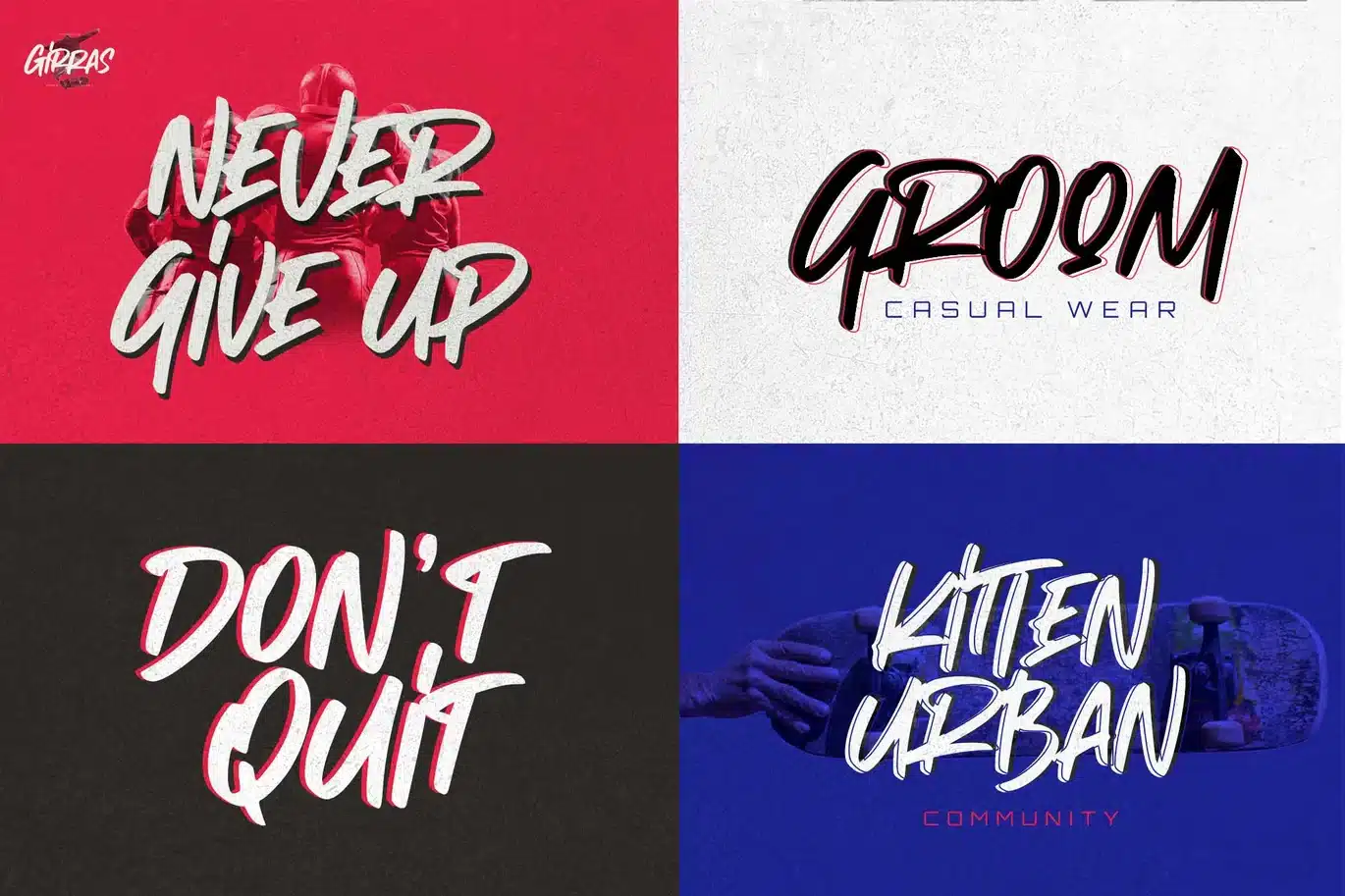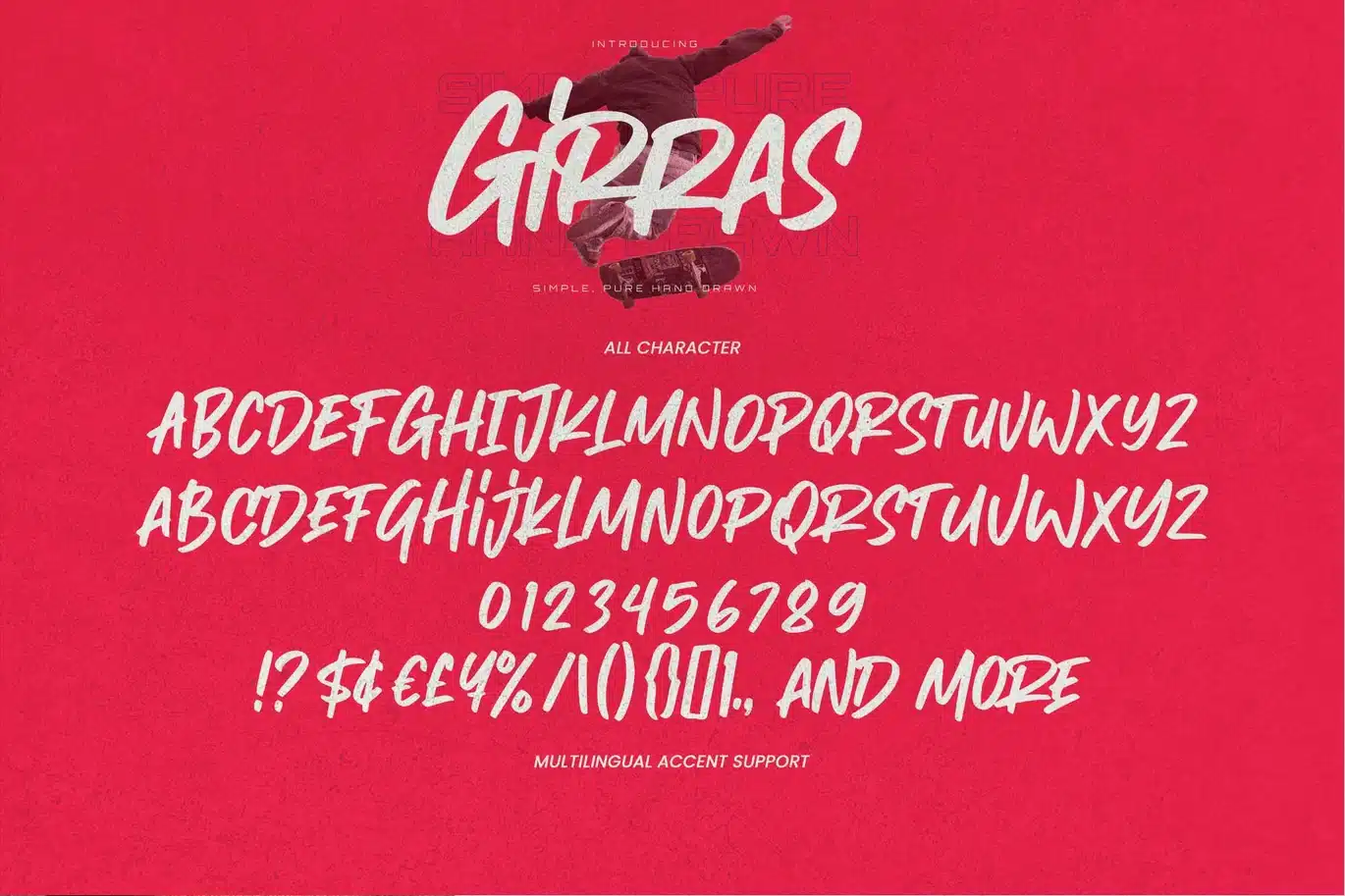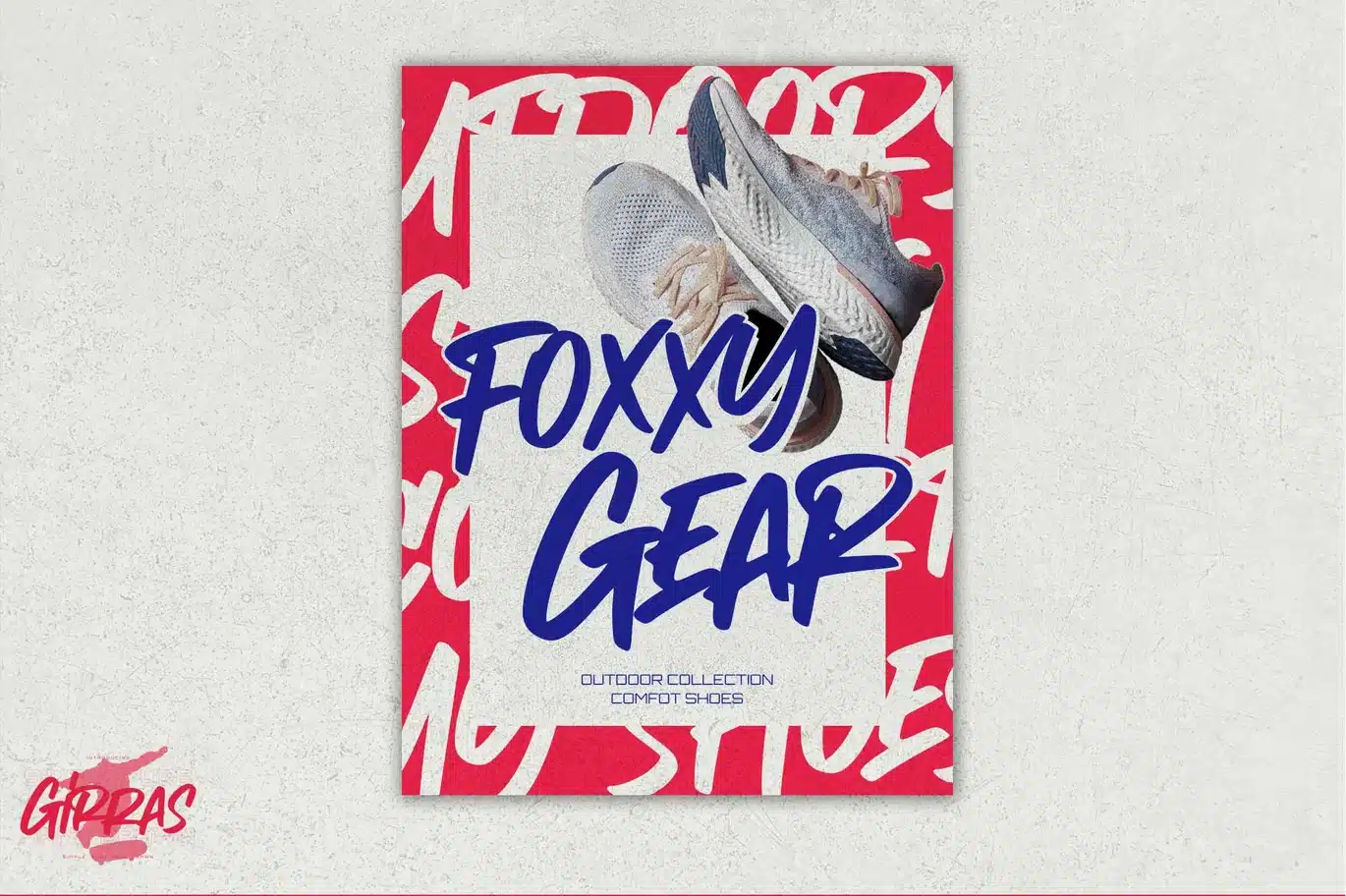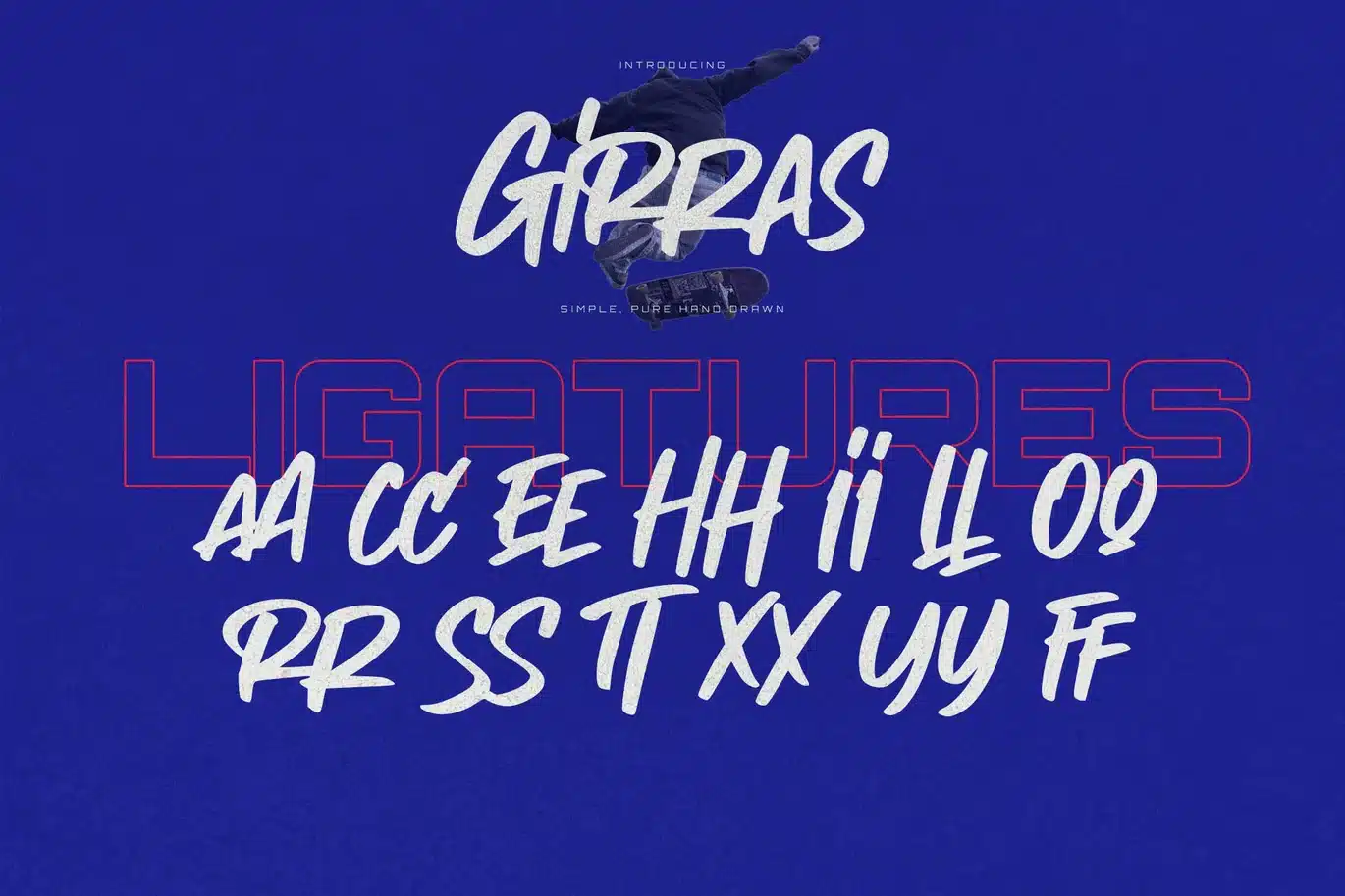
Girras – Simple Pure Hand Drawn Font
Hello Everyone, introduce our new product Font Girras Simple Pure Hand Drawn.This is a Textured Natural Style and classy style with a clear style and handdrawn style.
This font Girras is great for your next creative project such as logos, printed quotes, invitations, cards, product packaging, headers, Logotype, Letterhead, Poster, Design this font is great for your creative projects such as watermark on photography, and perfect for logos & branding, invitation,advertisements,product designs, stationery, wedding designs,label ,product packaging, special events or anything that need handwritting taste.
That is has charming, authentic and relaxed characteristic more natural look to your text.